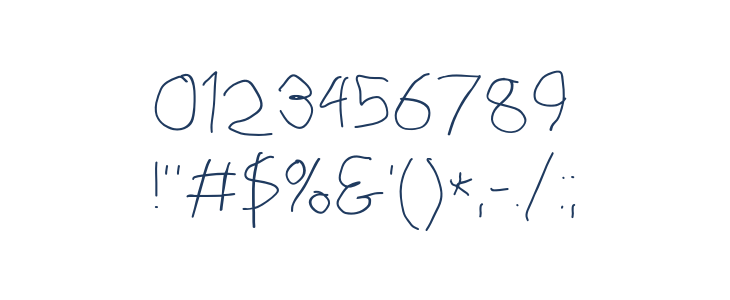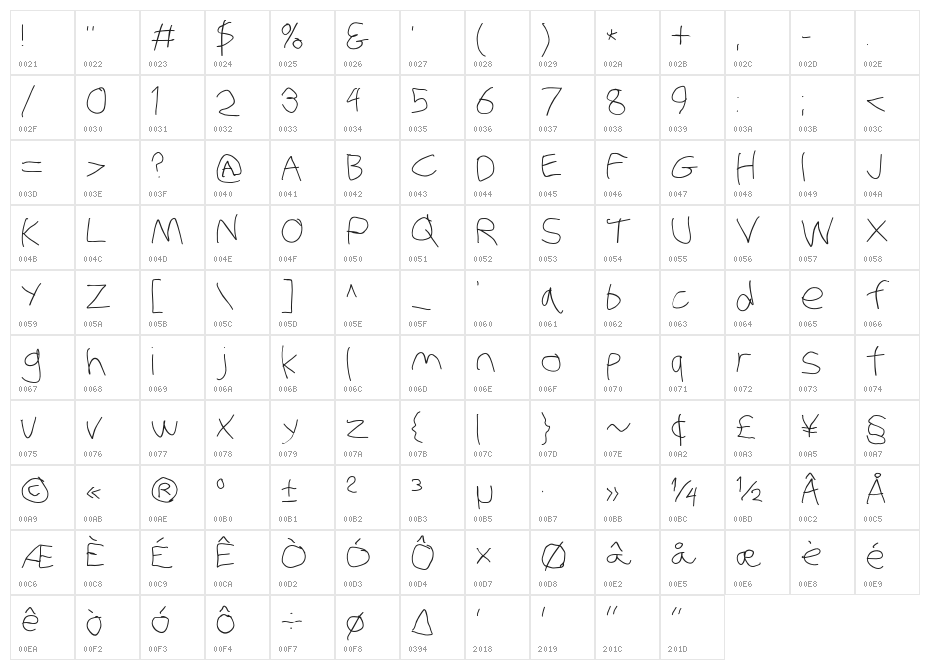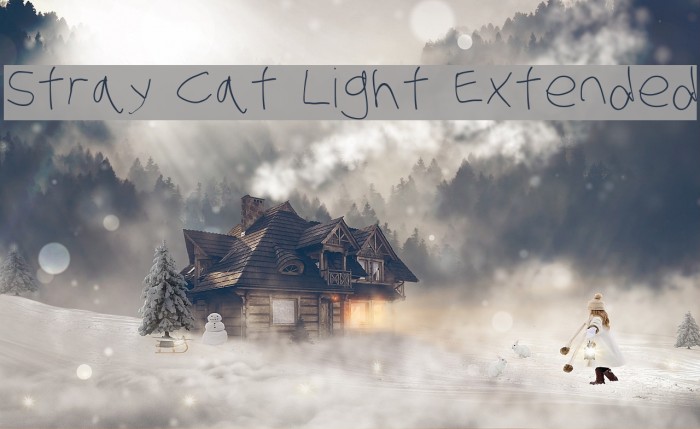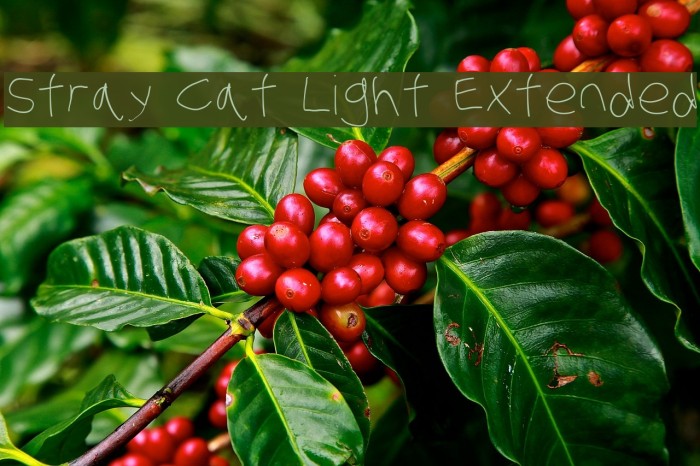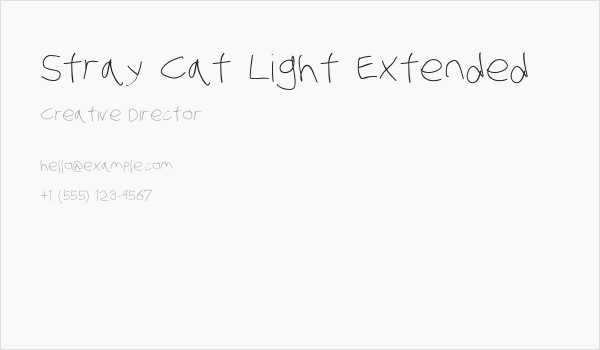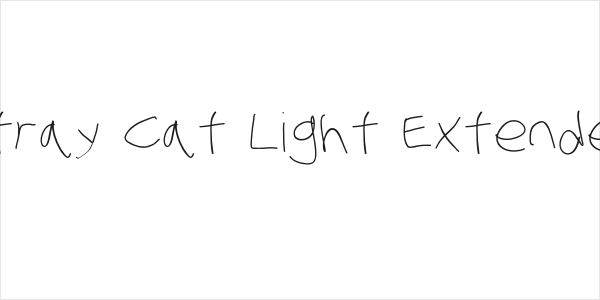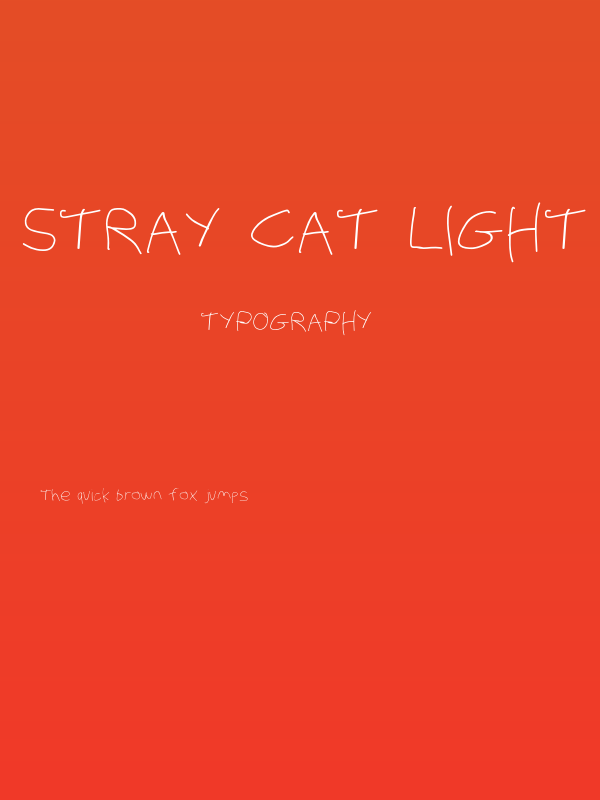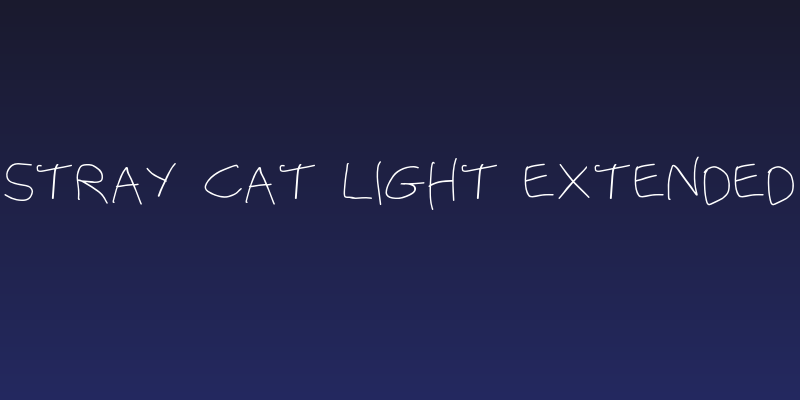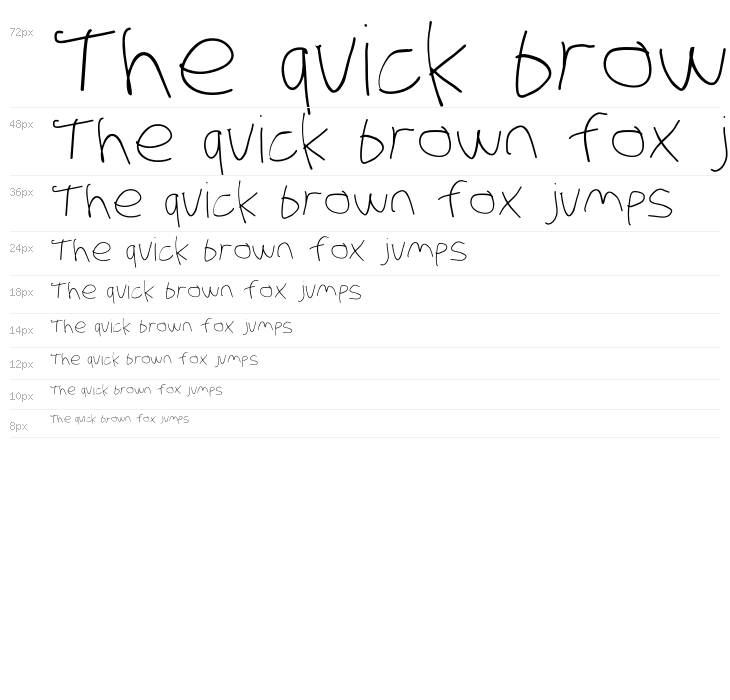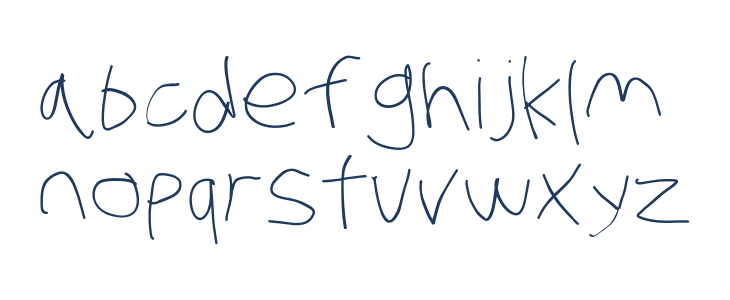
Stray Cat Light Extended Font
Stray Cat Light Extended Description
This font features a playful and casual handwritten style, characterized by its light and airy strokes. The letters are slightly irregular, adding a whimsical and informal touch. The overall appearance is reminiscent of a quick, freehand sketch, giving it a personal and approachable feel. The characters are extended, providing a sense of openness and space. This font is particularly suitable for projects that aim to convey a sense of friendliness and creativity. The numerals and special characters maintain the same casual aesthetic, ensuring consistency across all text elements.
| Proposed Projects | Ideal for greeting cards, personal blogs, children's books, and casual branding. |